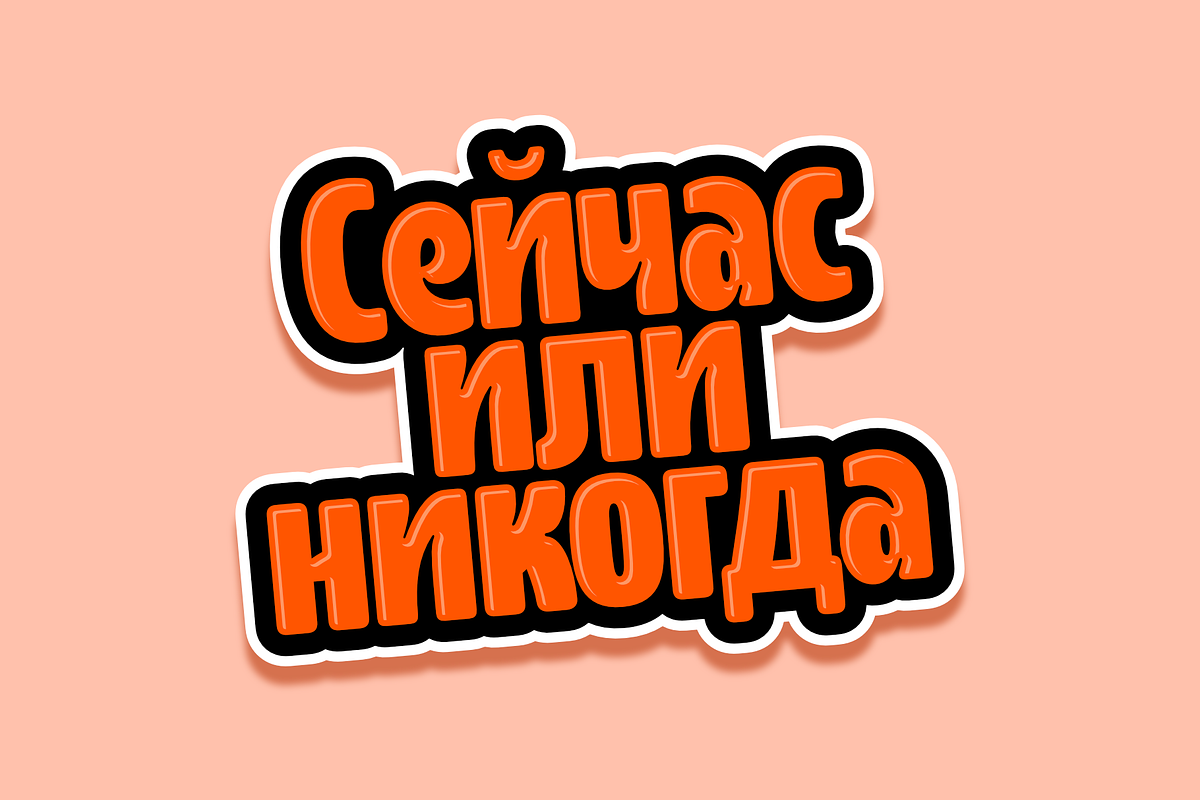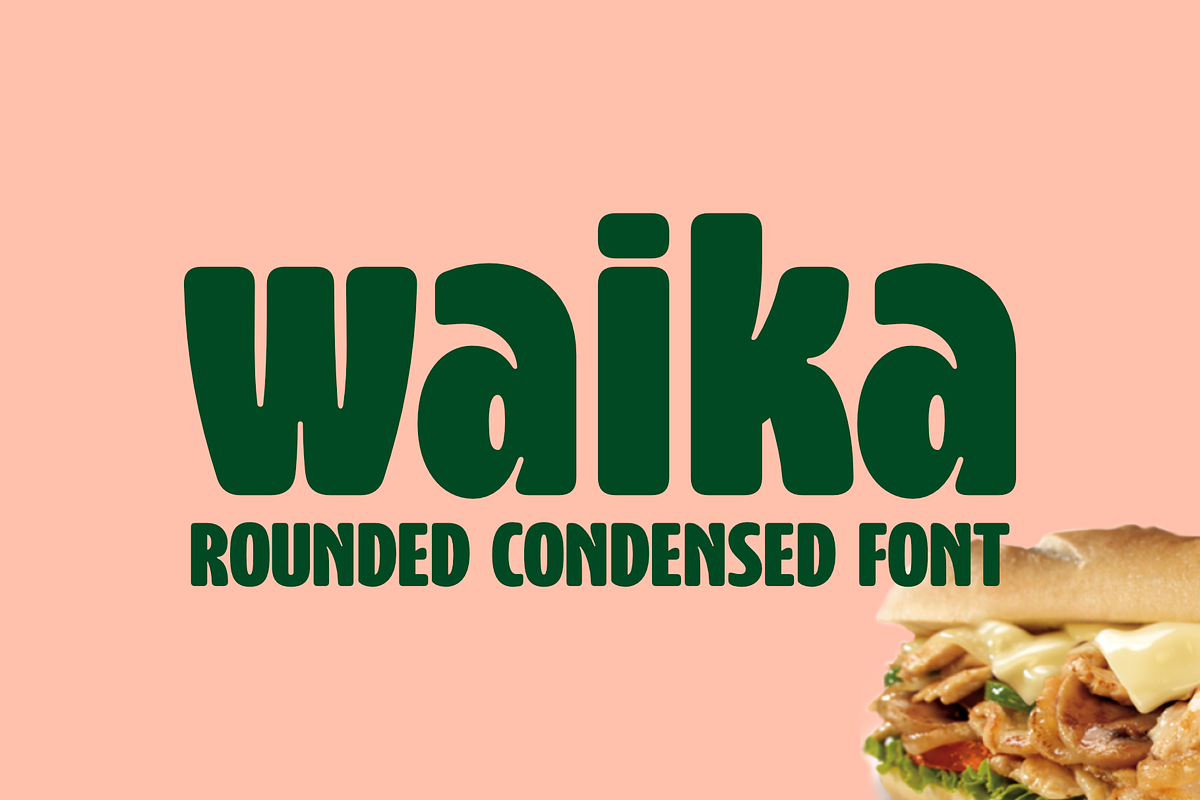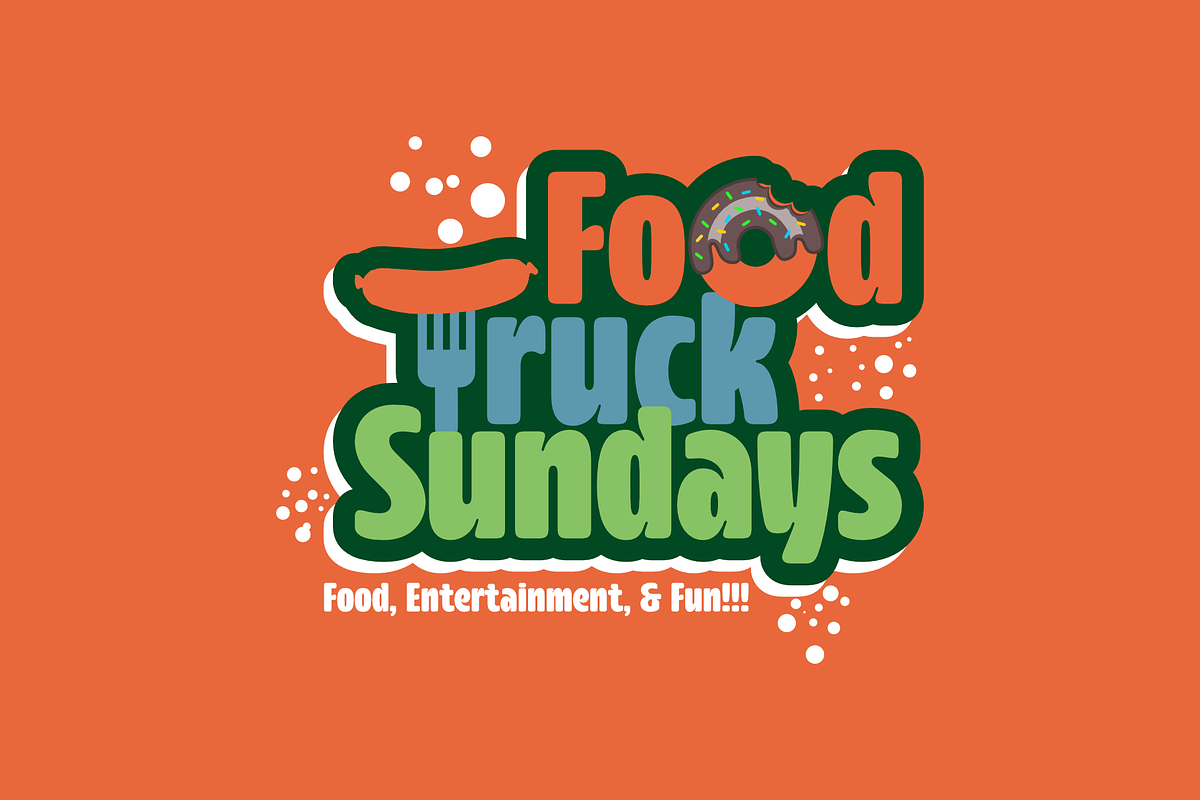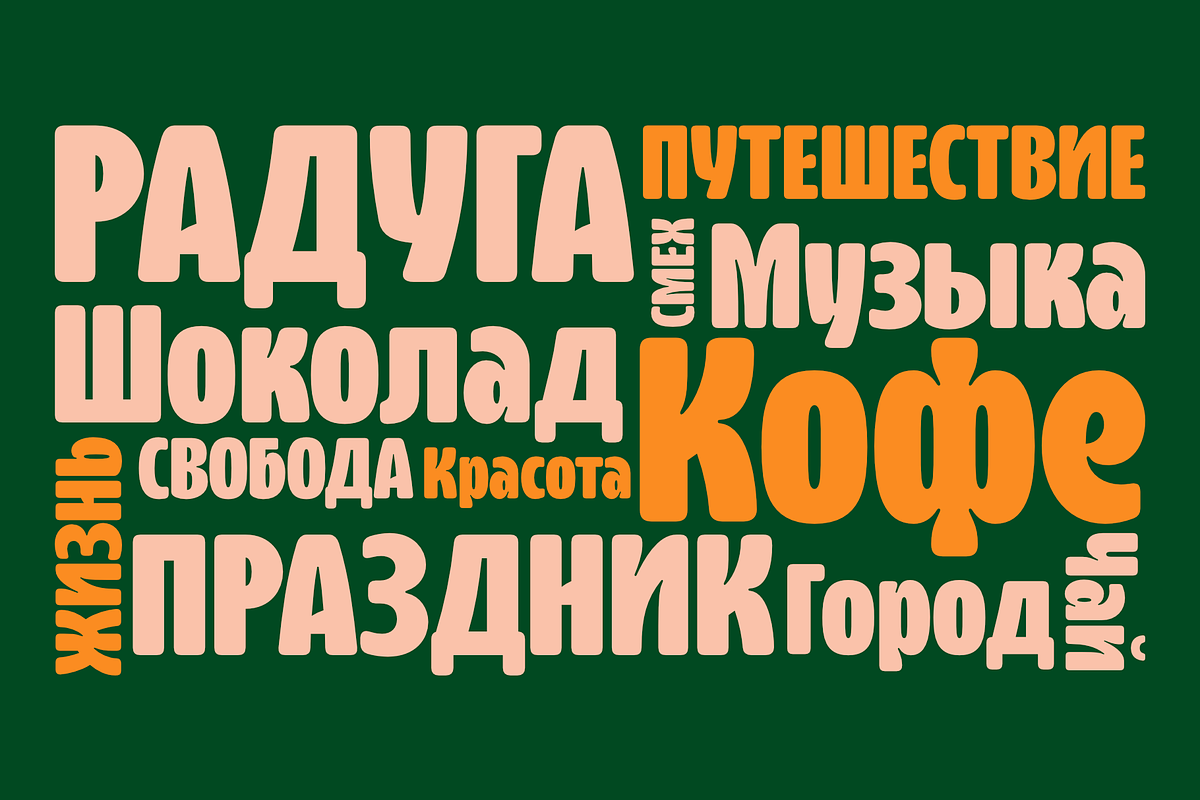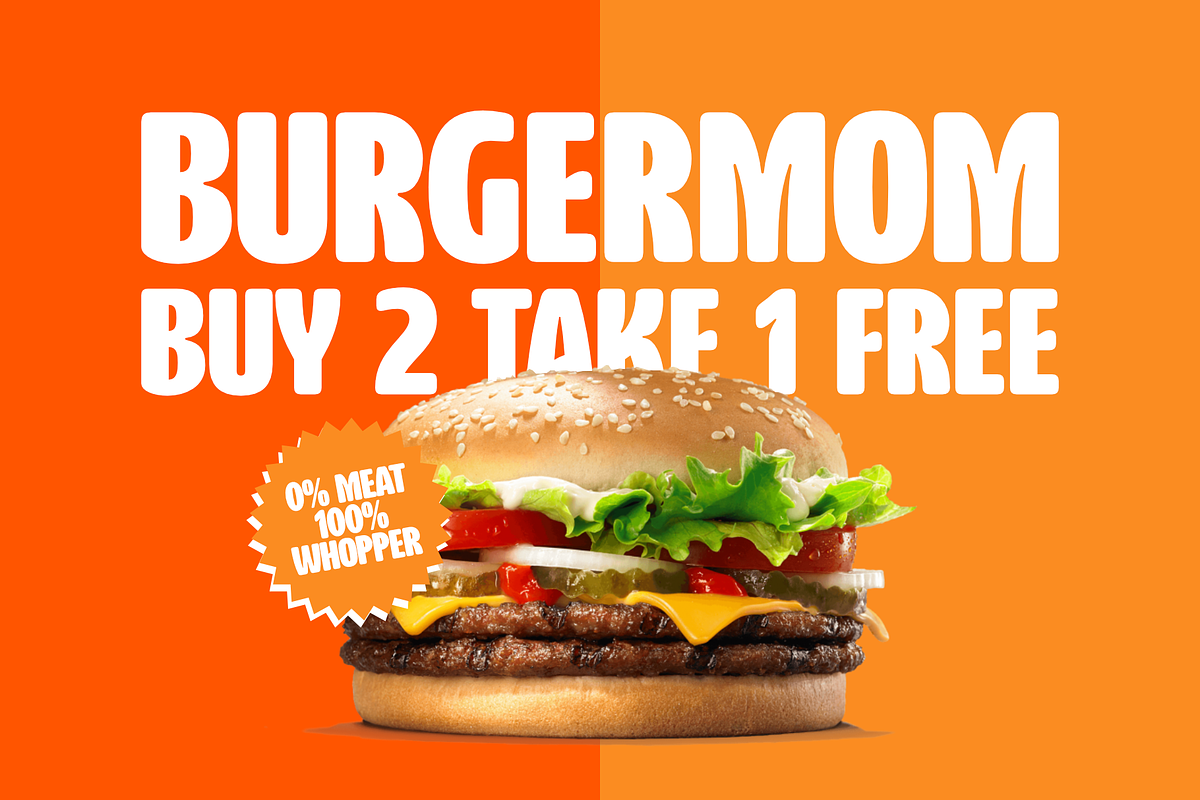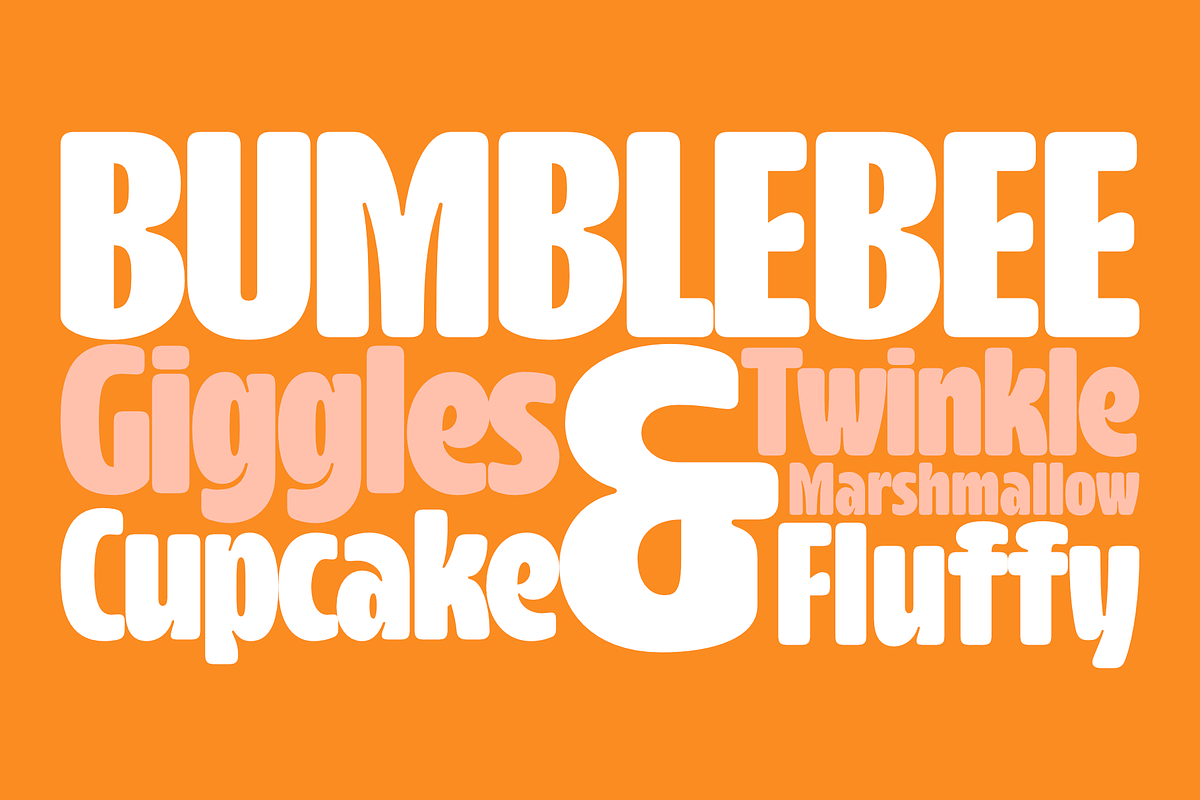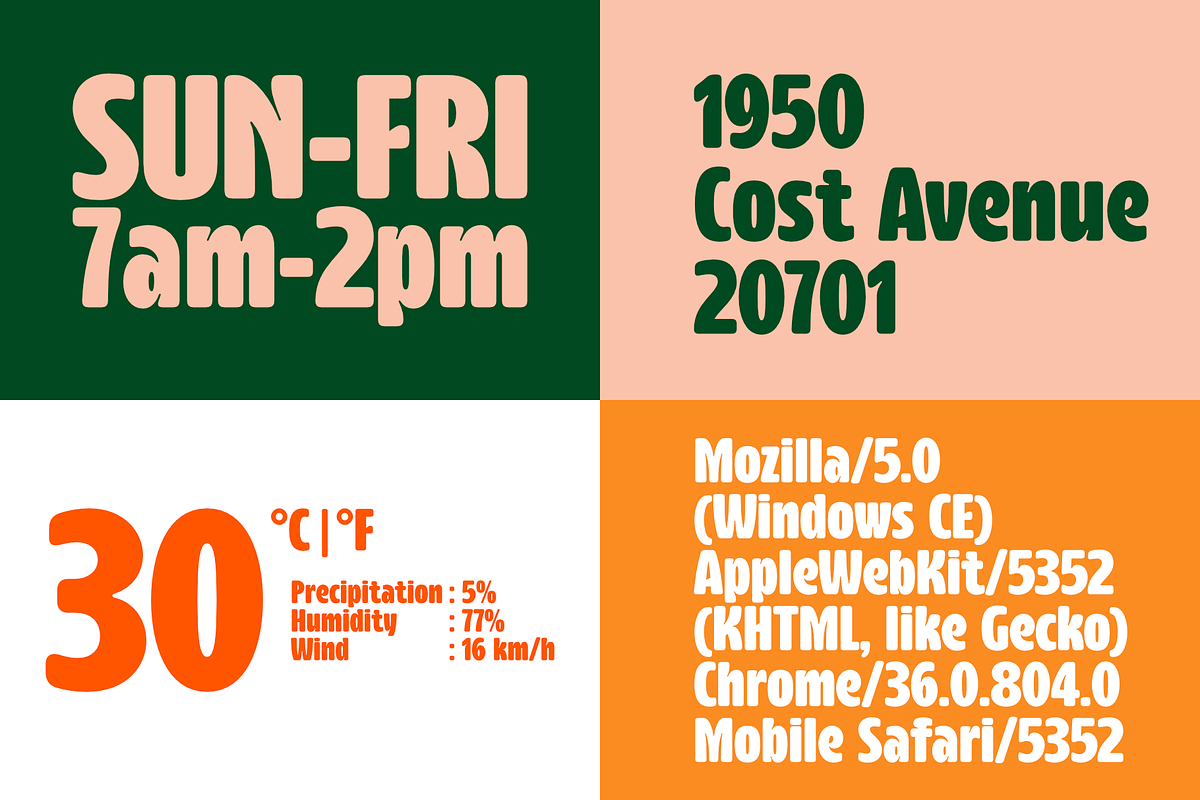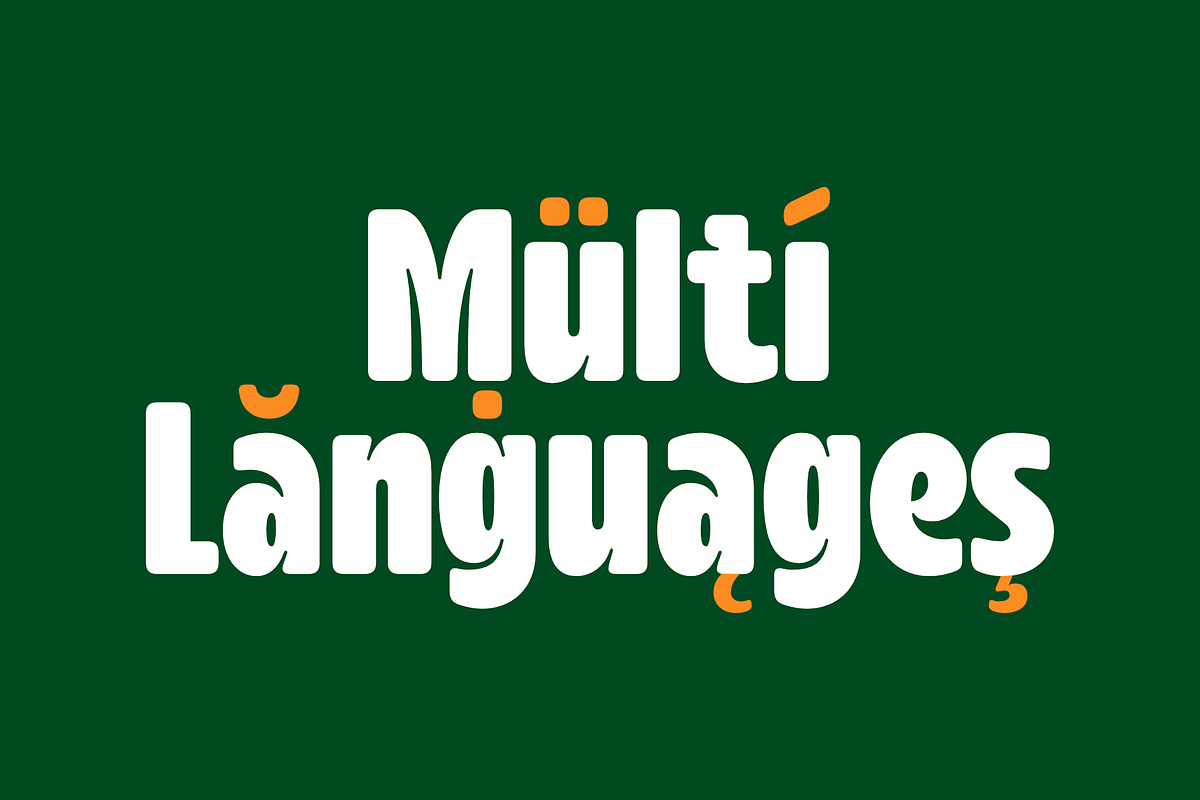
Waika
Waika is a modern sans serif font that seamlessly blends a rounded aesthetic with condensed proportions, resulting in a contemporary and versatile typeface. Its smooth curves and absence of serifs contribute to a clean and friendly appearance, making it suitable for a wide range of applications. The deep inktrap adds a touch of sophistication and uniqueness to each character, ensuring legibility and visual appeal in various design contexts. Waika is a dynamic choice for projects seeking a balance between modernity and approachability.